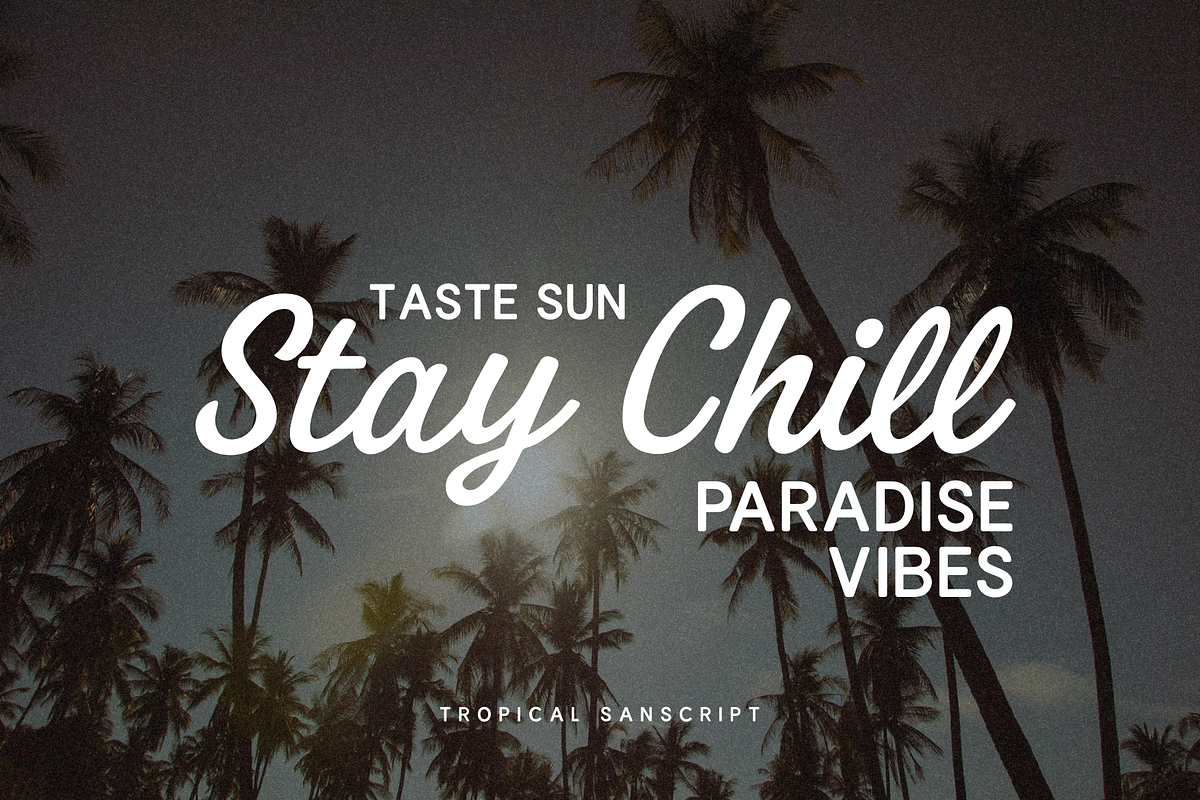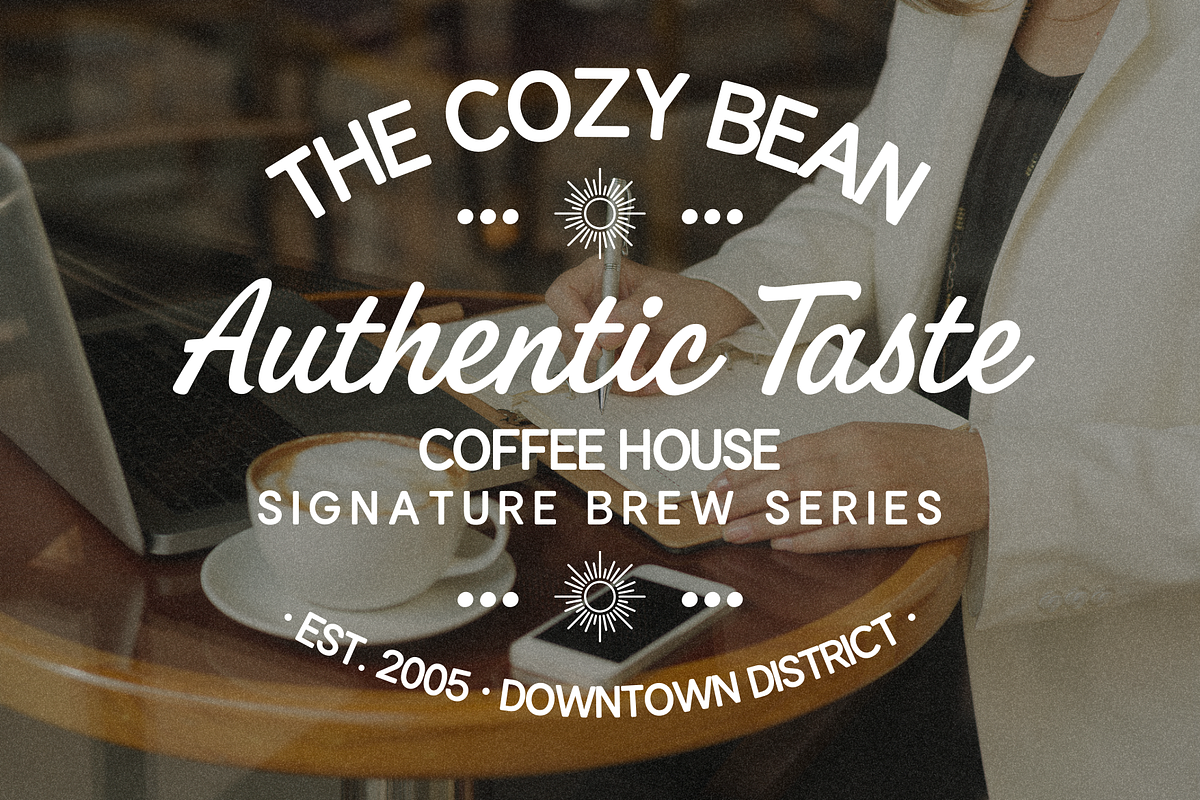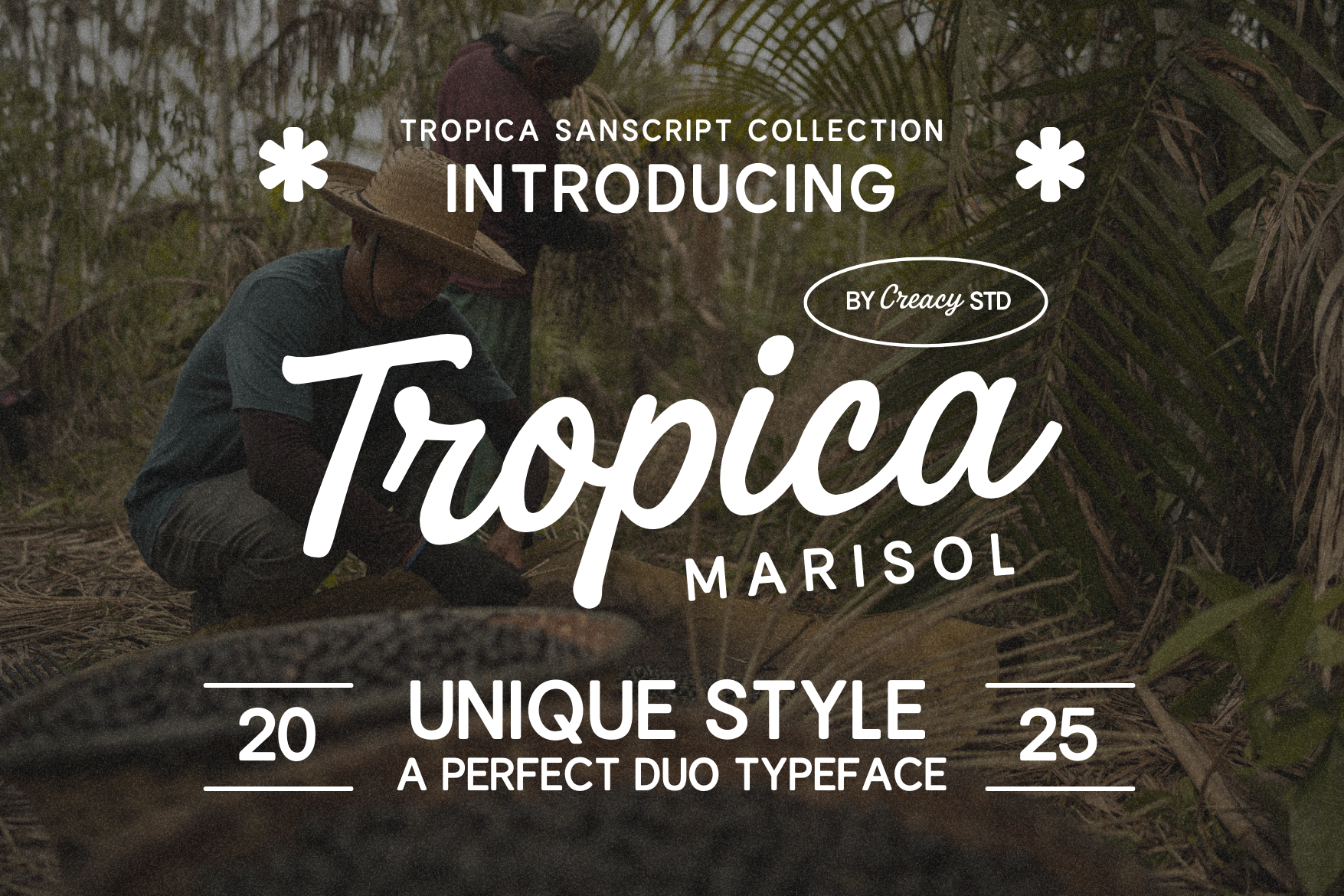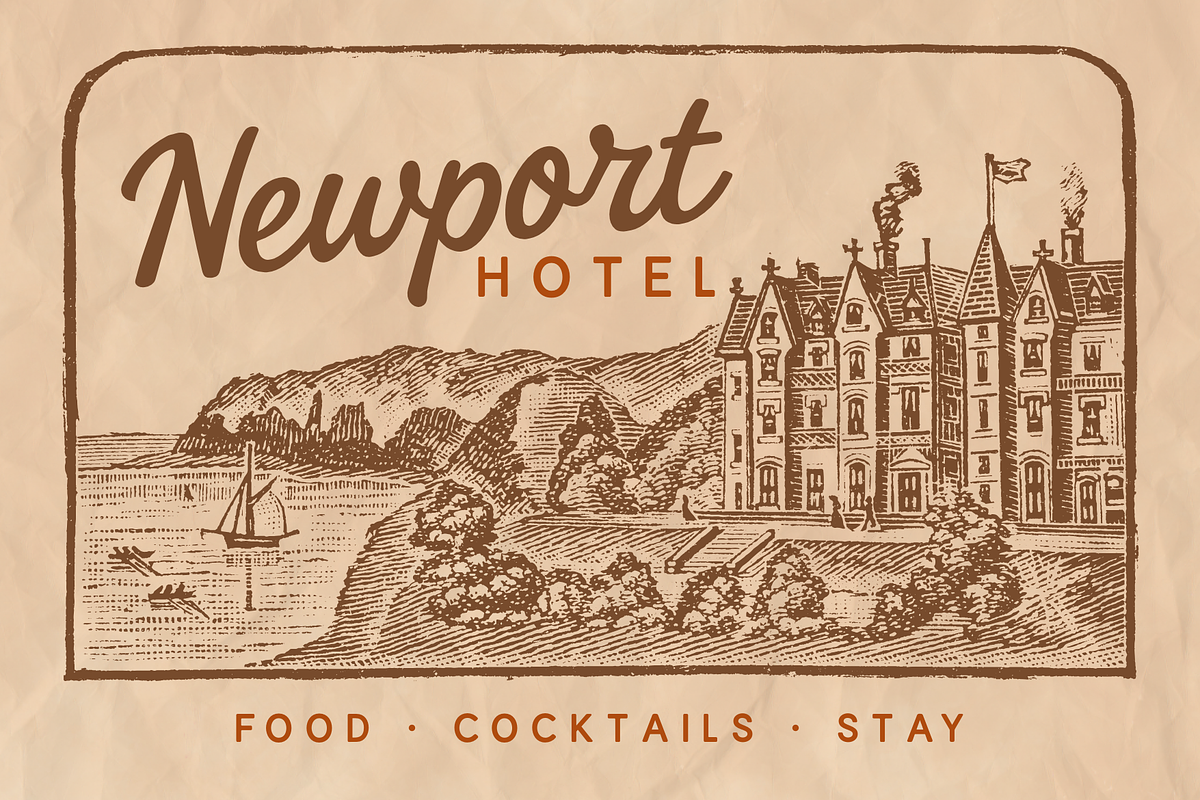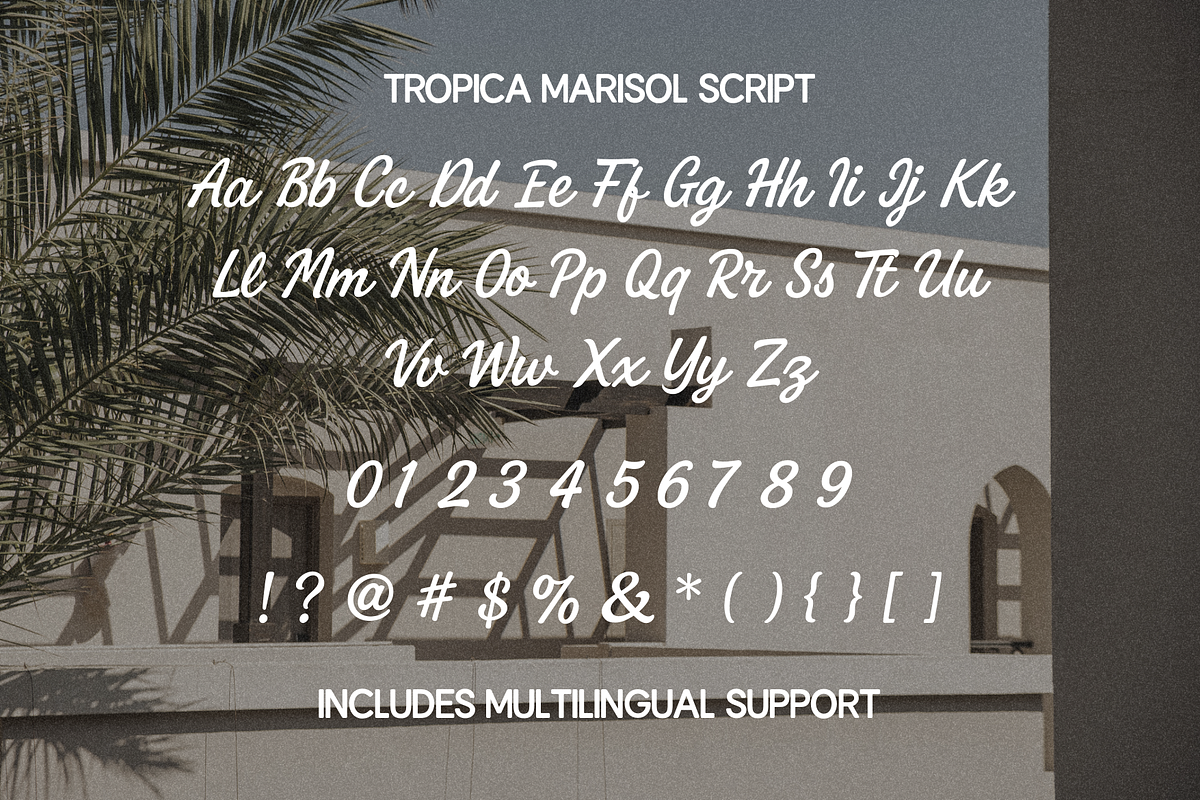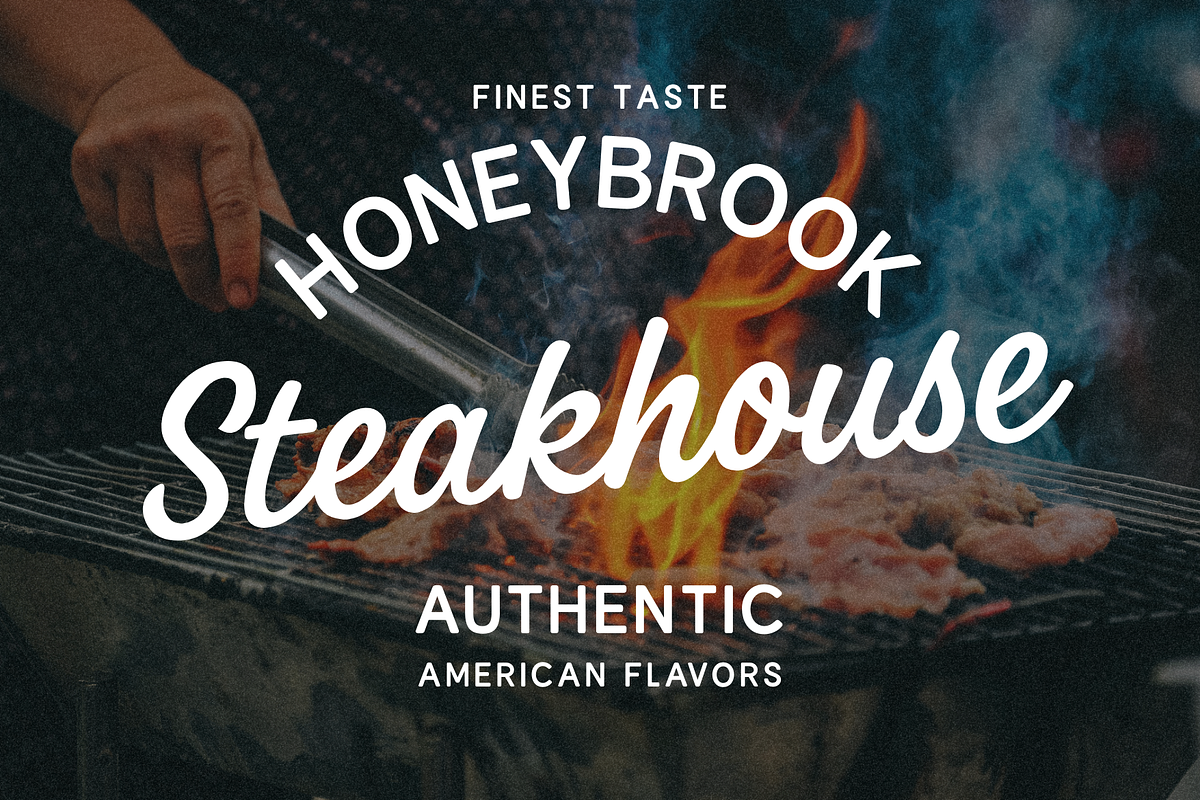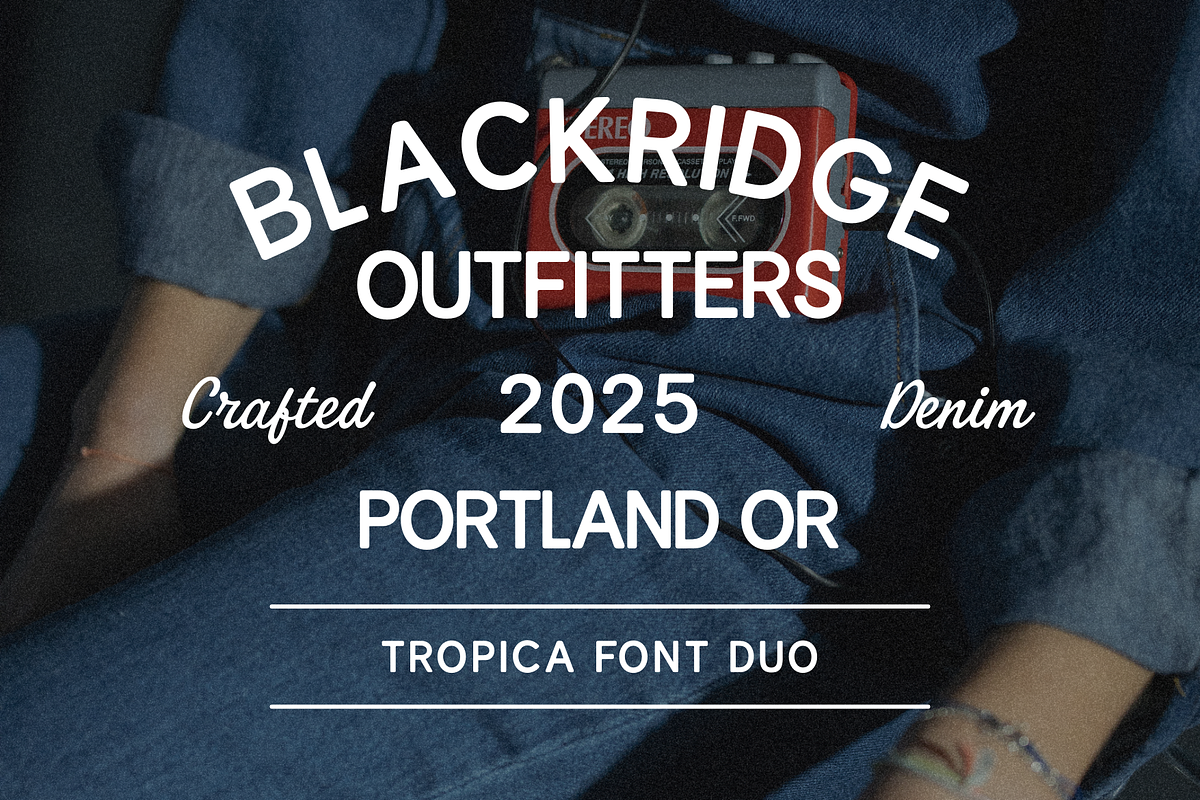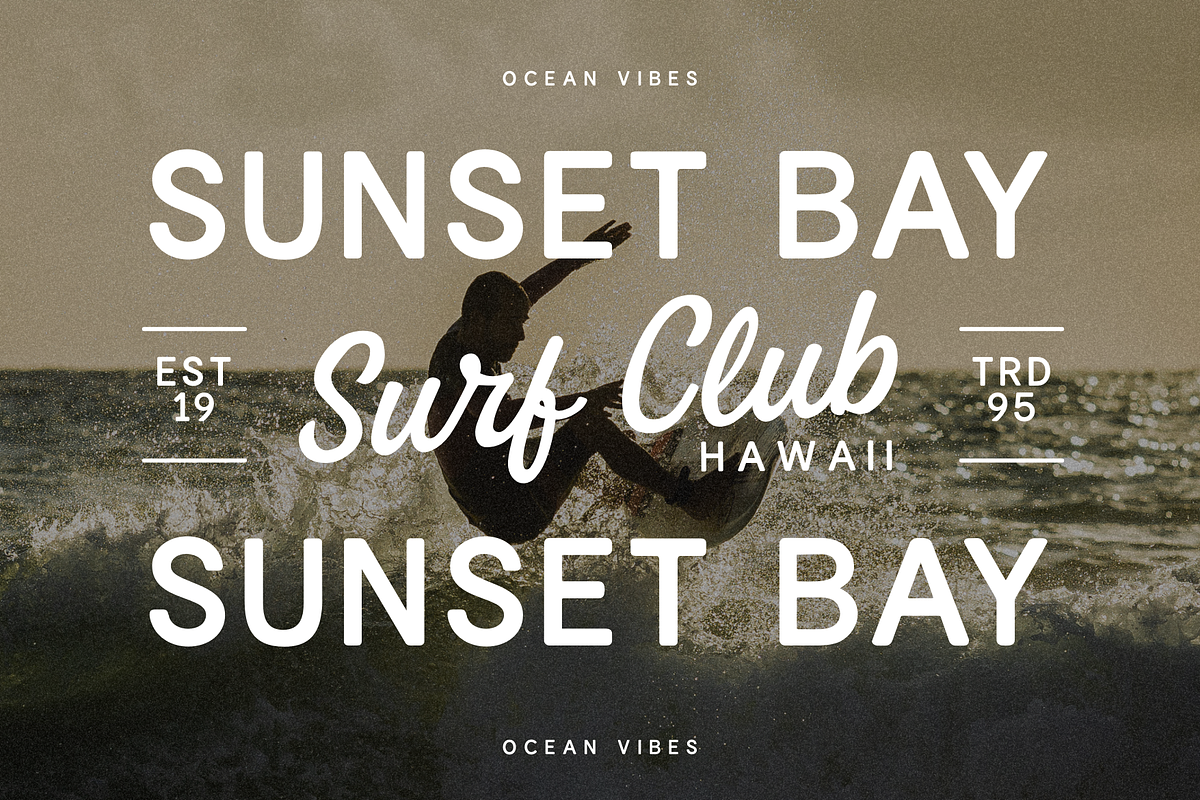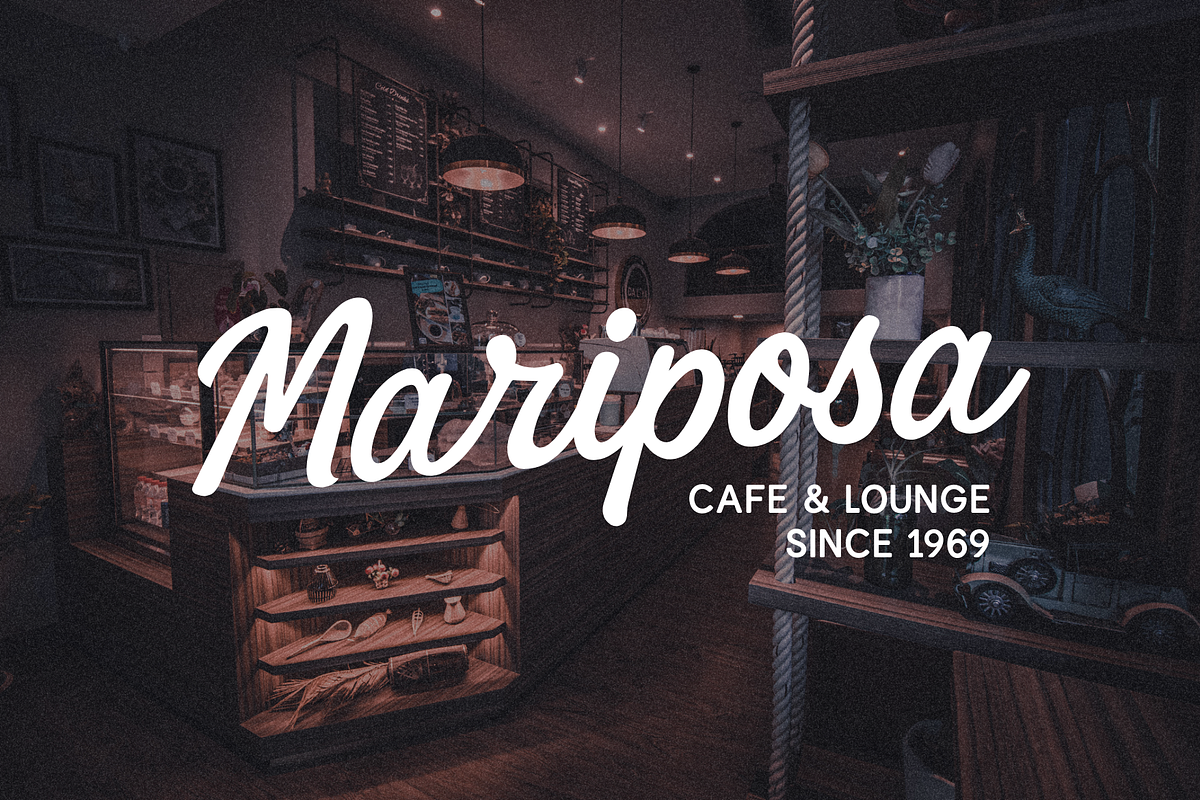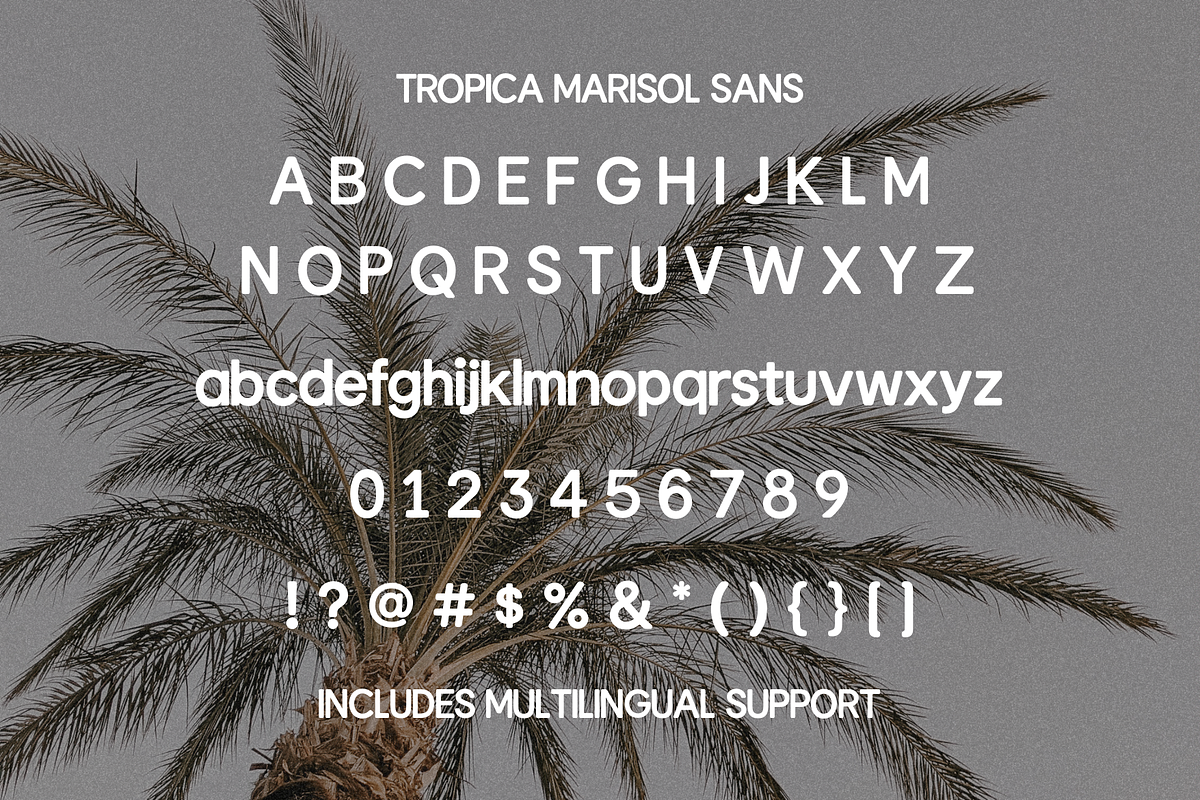
Tropica Marisol – Duo Typeface
Tropica Marisol is a versatile font duo that combines a warm retro script with a clean modern sans. Inspired by tropical aesthetics, vintage signage, and timeless classics, this typeface is perfect for branding, packaging, editorial design, and authentic signage projects. Key Features Duo Typeface – A perfect pairing of elegant script and modern sans in one family. Retro Tropical Style – Influenced by café signage, surf clubs, steakhouses, and classic hotels. Versatility – Ideal for logos, café and restaurant branding, beverage labels, apparel, wedding invitations, posters, and social media. Effortless Pairing – Both fonts are designed to complement each other seamlessly or stand alone. --- What’s Included Tropica Marisol Script (OTF/TTF/WOFF) Tropica Marisol Sans (OTF/TTF/WOFF) Multilingual Support Numbers and Punctuation --- Perfect For Branding and Logo Design Café, Bar, and Restaurant Identity Retro and Vintage Signage Social Media Templates Packaging and Merchandise Travel, Tropical, and Lifestyle Projects --- Multilingual Support Includes extended characters to support multiple languages. --- Note: Mockups and images are used for presentation purposes only. Font files are provided in OTF, TTF, and WOFF formats under the Creative Market license.